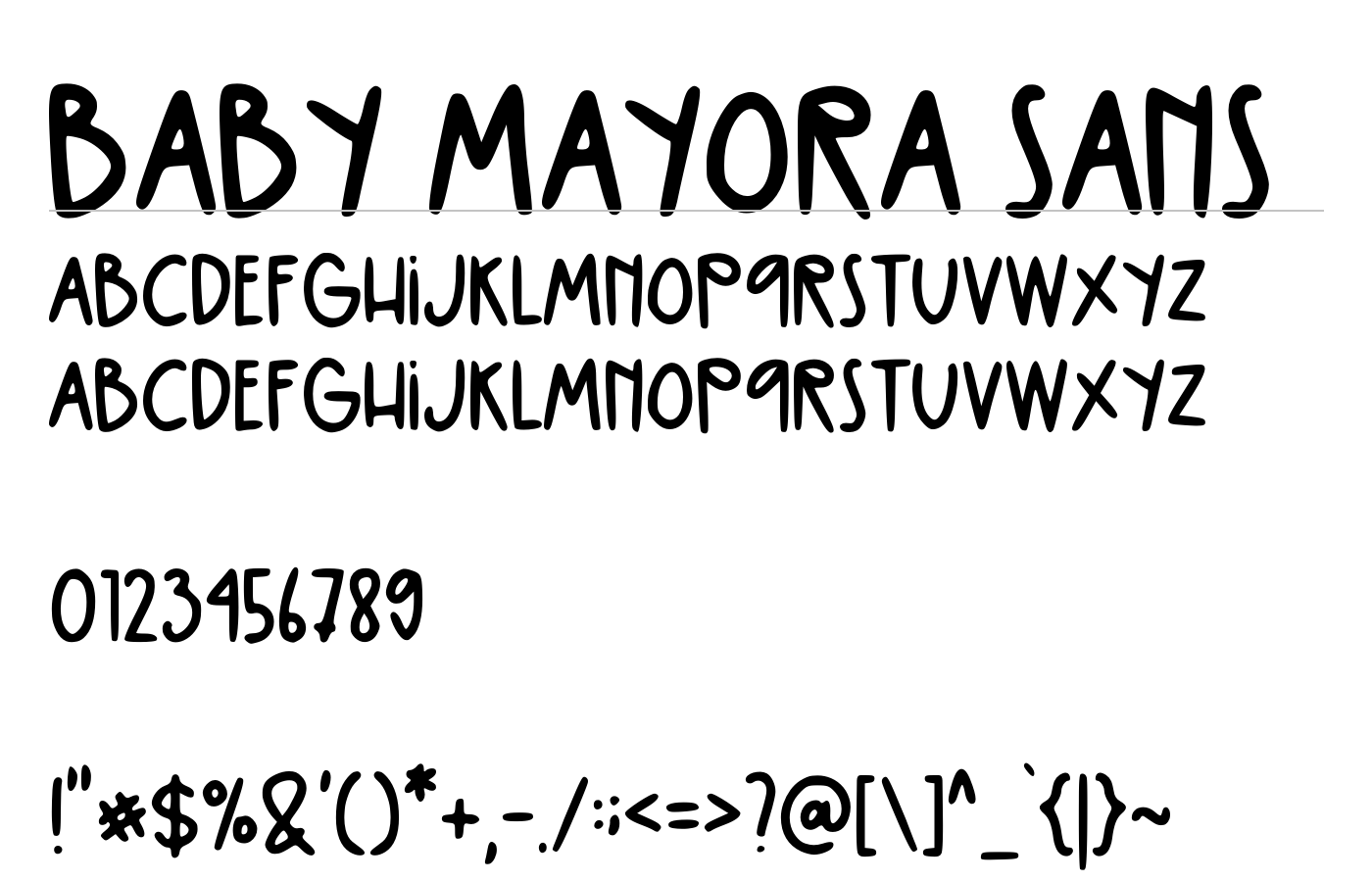
Baby Mayora Sans is a playful and casual sans serif font with a hand-drawn feel, featuring irregular strokes that give it a friendly and approachable personality. Its slightly condensed letterforms and medium x-height make it well-suited for creative projects, children's books, and informal branding that seeks a warm, personal touch. This font works best in headlines and display uses where a lively, organic style is desired.
Baby Mayora Sans Font
About Baby Mayora Sans Font
| Font family | Baby Mayora Sans Font |
| Designer | Panggah Laksono @ Abo Daniel Studio |